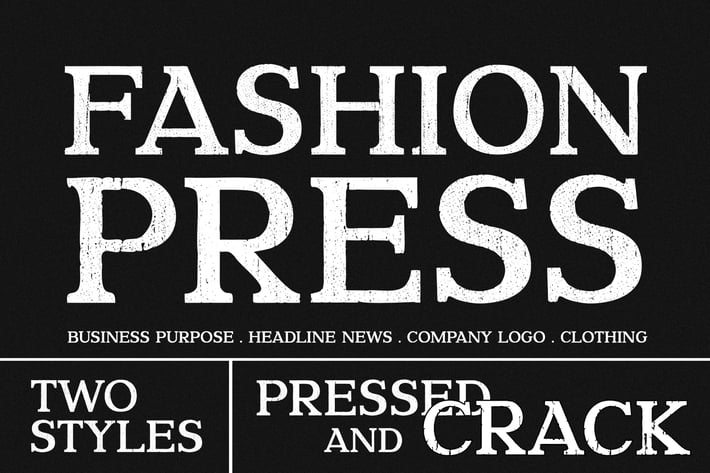
Fashion Pressed Advertisement Font
Fashion Pressed is elegant and futuristic font. It can easily be matched to an incredibly large set of projects like logo, package, advertisement, magazine, , so add it to your creative ideas and notice how it makes them stand out!